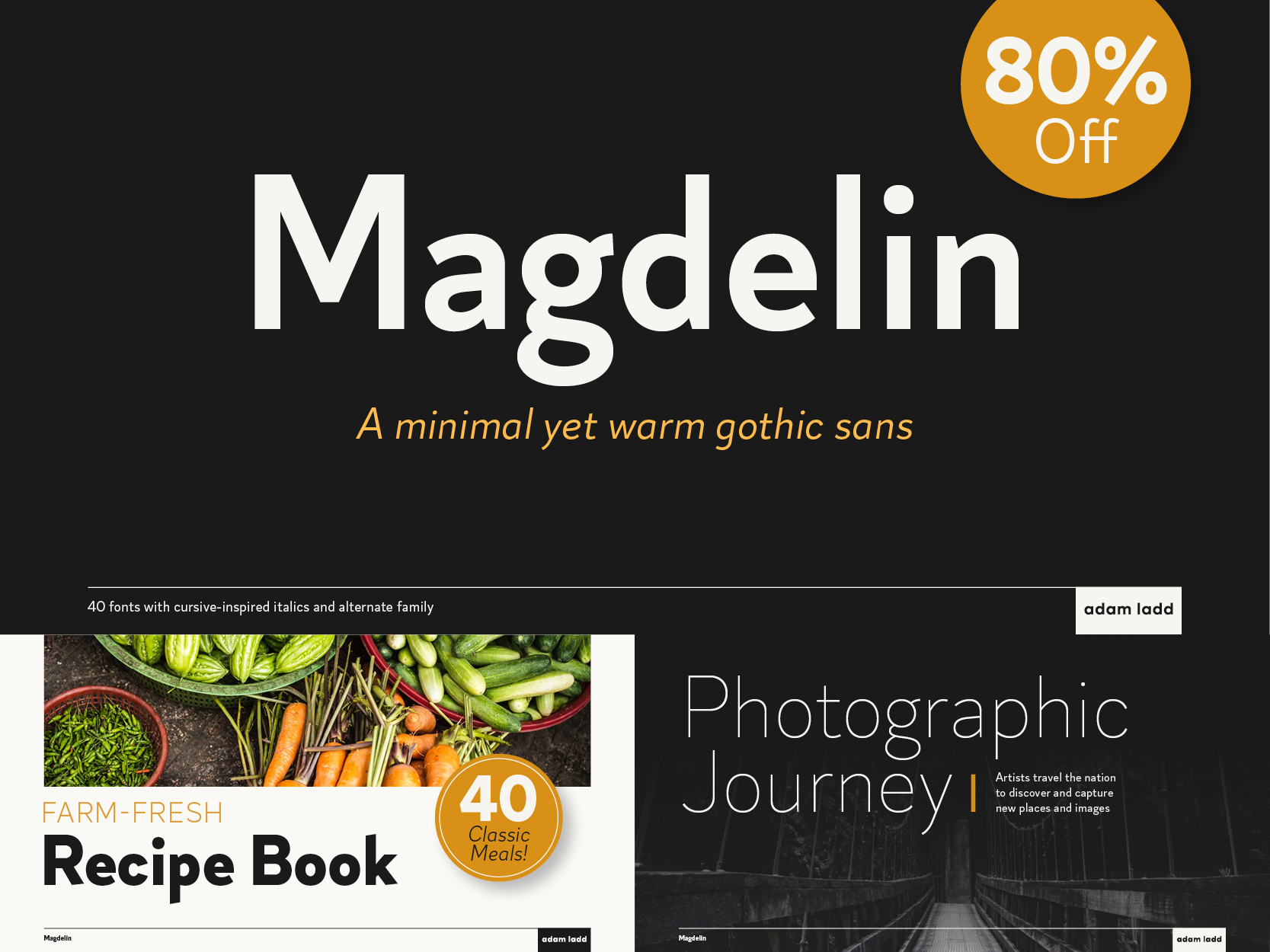
Magdelin Font Family
Just released my newest font family, Magdelin. A minimal yet warm gothic sans with humanist qualities. Consisting of 40 fonts in two families, with weights ranging from thin to black.